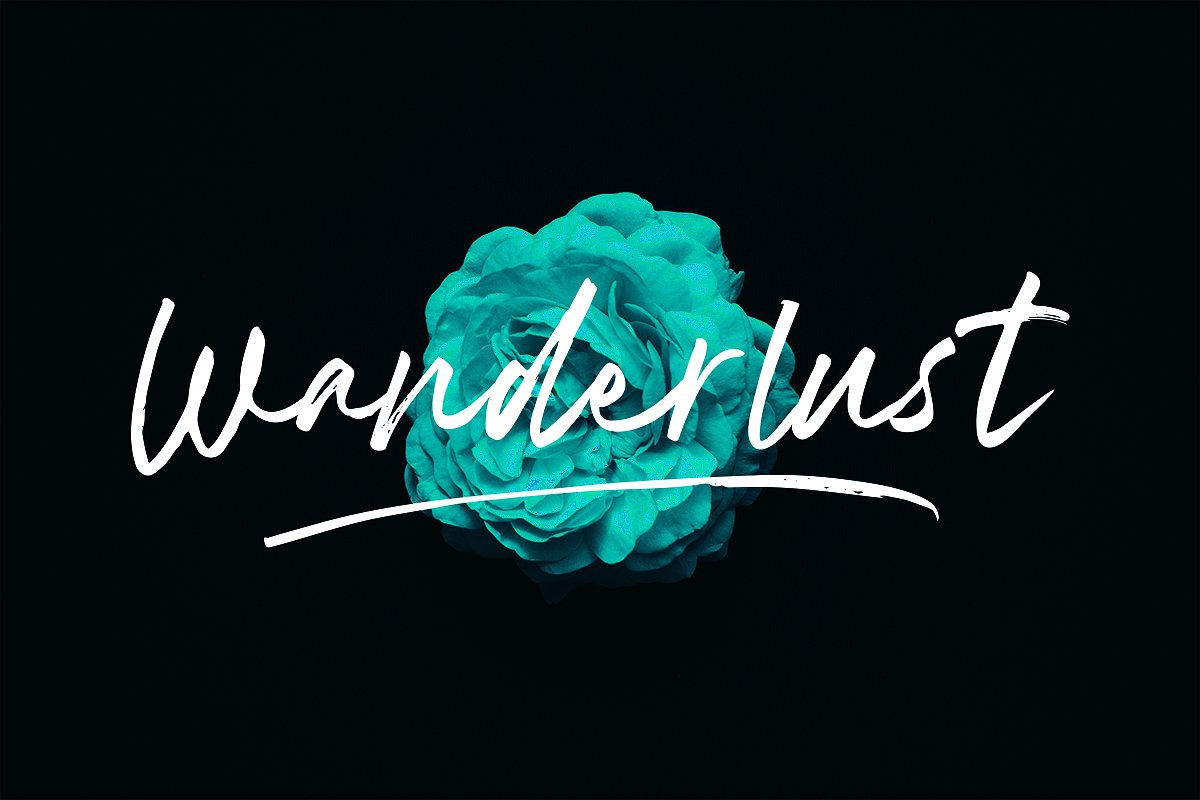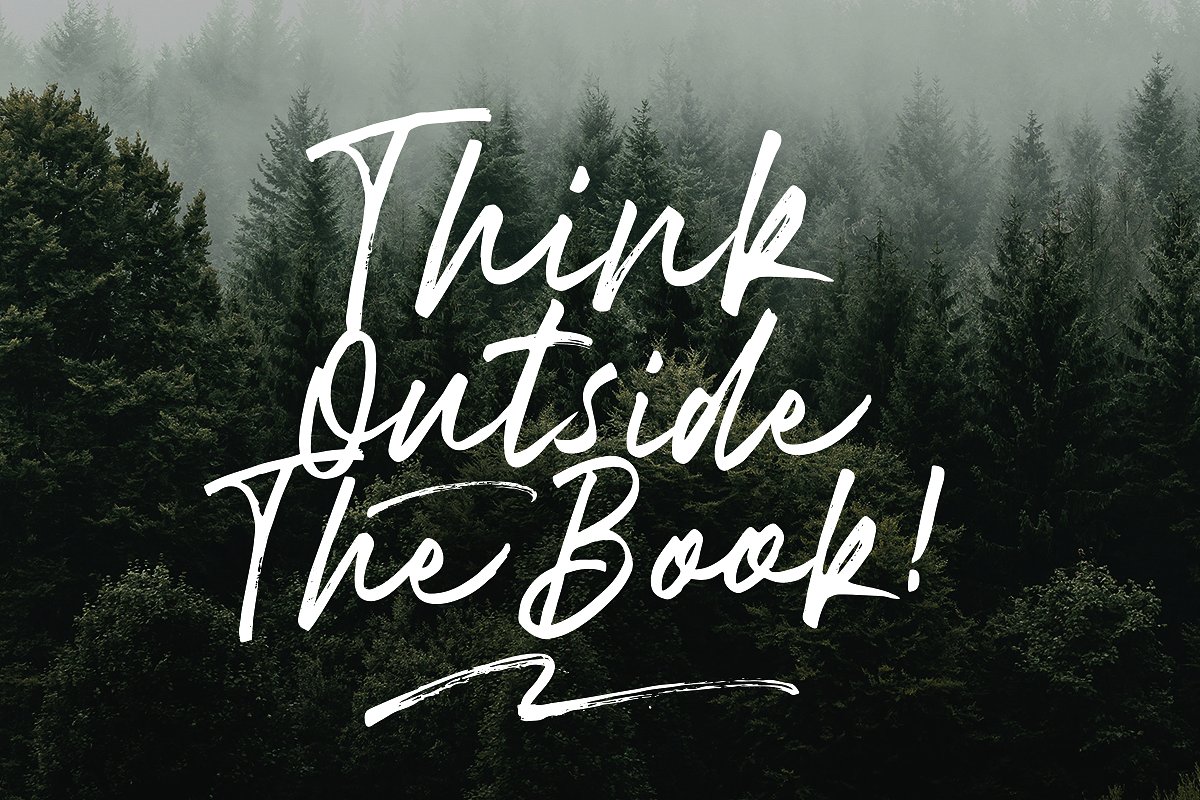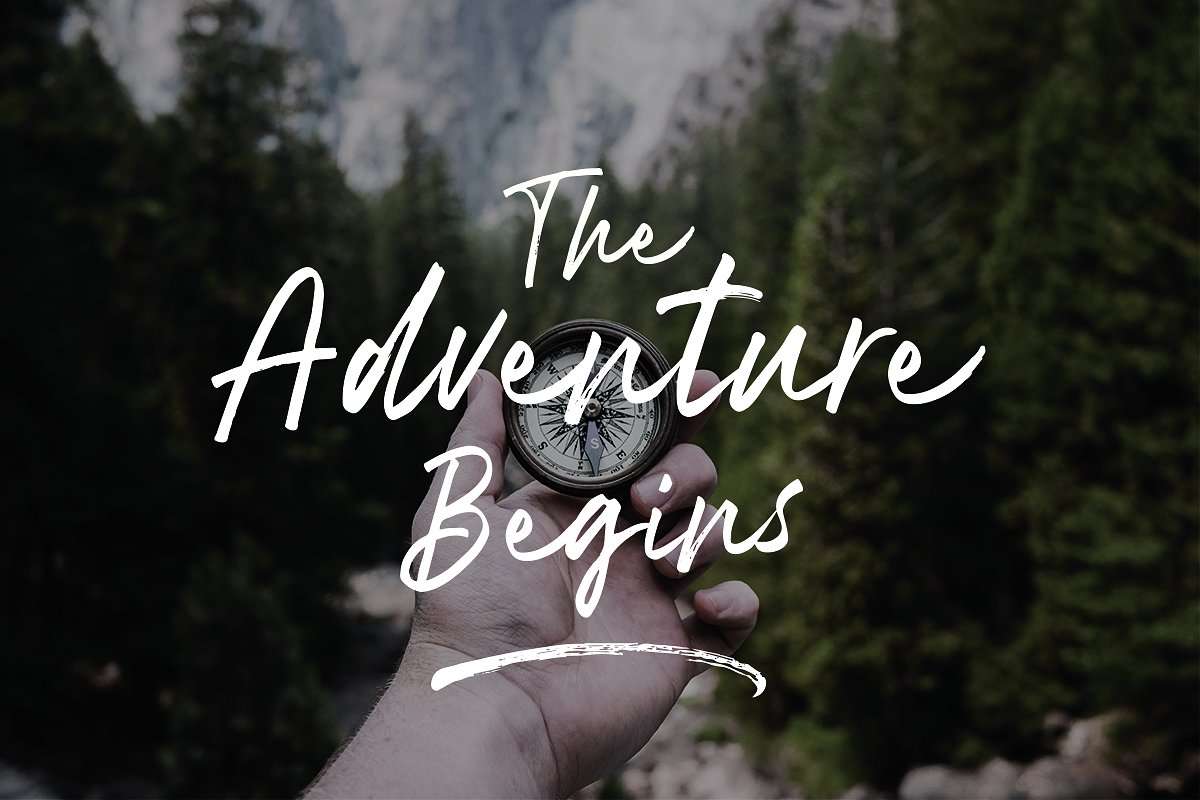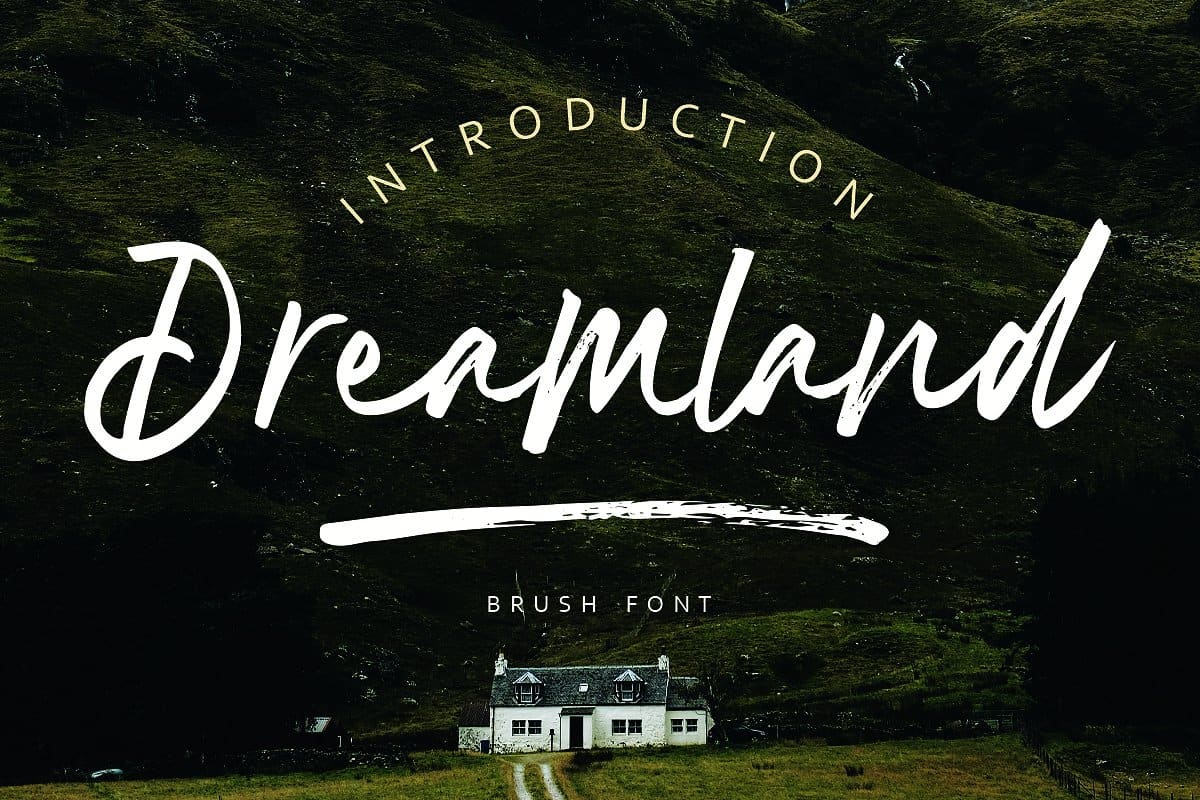
Dreamland Brush Font
Dreamland Brush Font – Free Demo
A brush script with attitude! This font is the perfect mix between freshy and serious. Introducing Dreamland Font. Dreamland is a paper that is made directly by hand, Dreamland is designed to be combined perfectly and allows you to make writing like your own handwriting. Dreamland is perfect for various occasions. Wedding invitations, T-shirts or cards, Instagram posts, is very flexible.